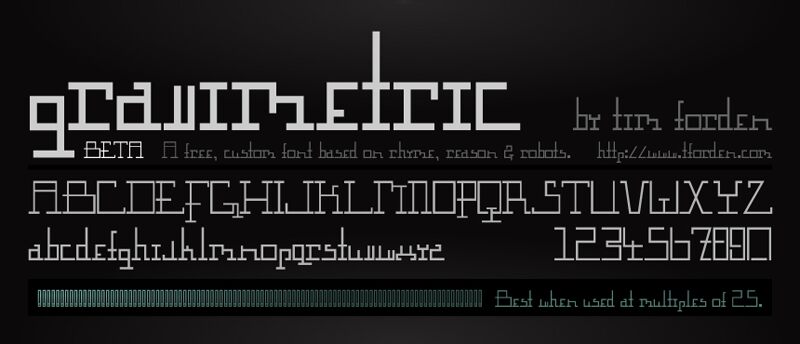
Gravimetric, designed by Tim Forden, is a free geometric techno display font built from rigid, monoline strokes. Its squared corners, open joins, and long horizontal runs give the letters the measured look of a circuit diagram, with abrupt breaks adding an engineered texture.
It can turn a game interface or electronic music poster into a schematic-like graphic, and its modular forms also suit technology branding. On science-fiction packaging, the lettering can connect with circuit traces, grids, and technical illustrations, becoming part of the machinery rather than a separate caption.
Best at sizes that are multiples of 25.